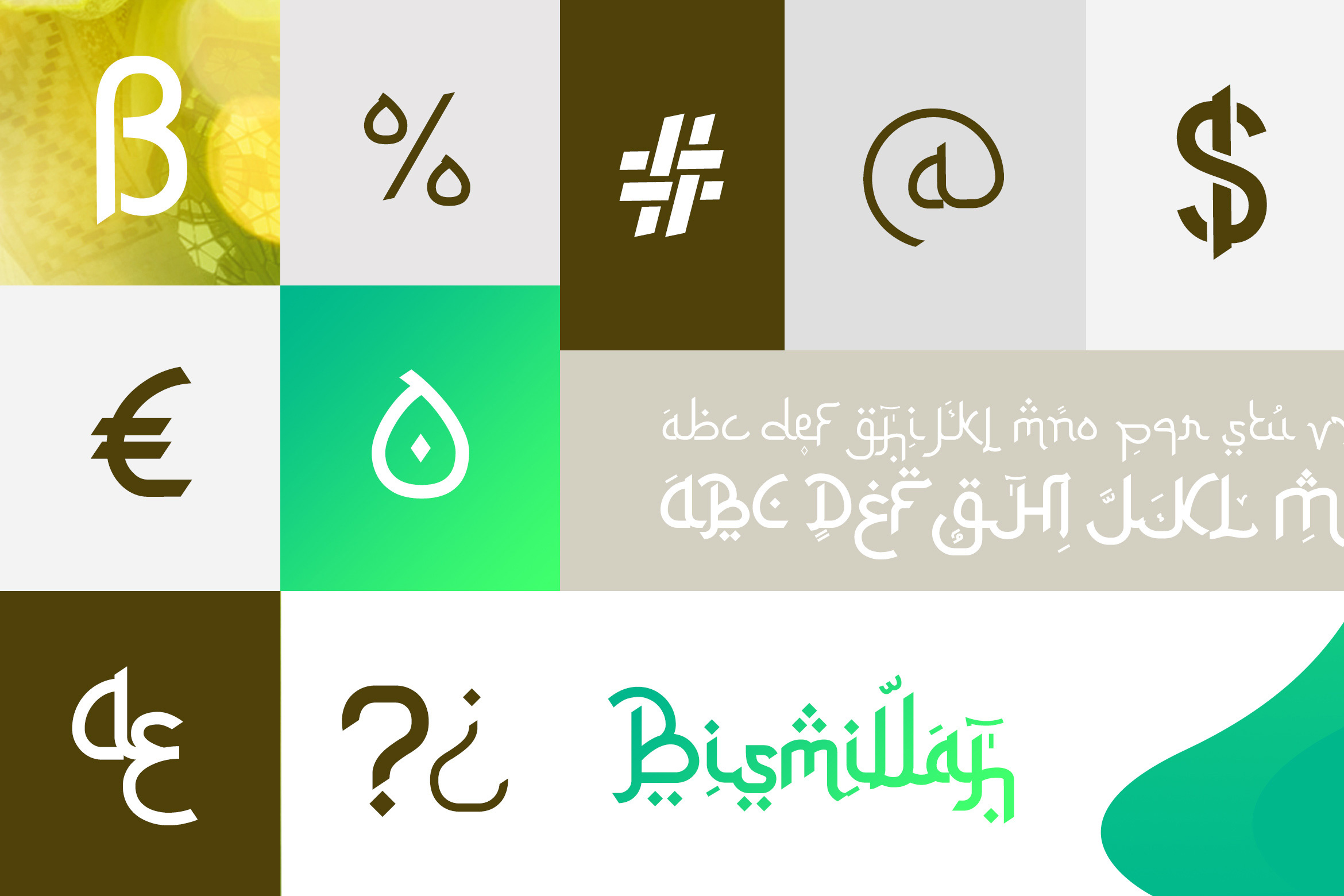
Ketupat Font Family
Ketupat font is a simple Arabic fauxlang typeface with consist 7 font family; Light, Light Italic, Regular, Italic, Bold, Bold Italic, and Line Version.
Its design—inspired by Arabic typefaces and makes it suitable for almost anything you can think of. Especially for packaging design.